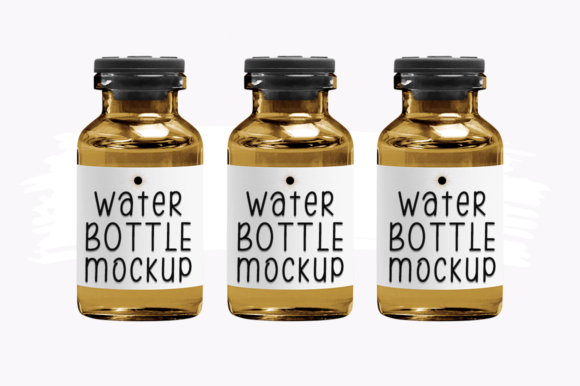
Smith Family Font
Smith Family font duo is a hand brushed font made with brush and ink. This typeface is ideal for use in bold watercolor designs or handwritten styles, such as blog titles, posters, wedding elements, t-shirts, clothing, book covers, business cards, greeting cards, branding, merchandise, etc.